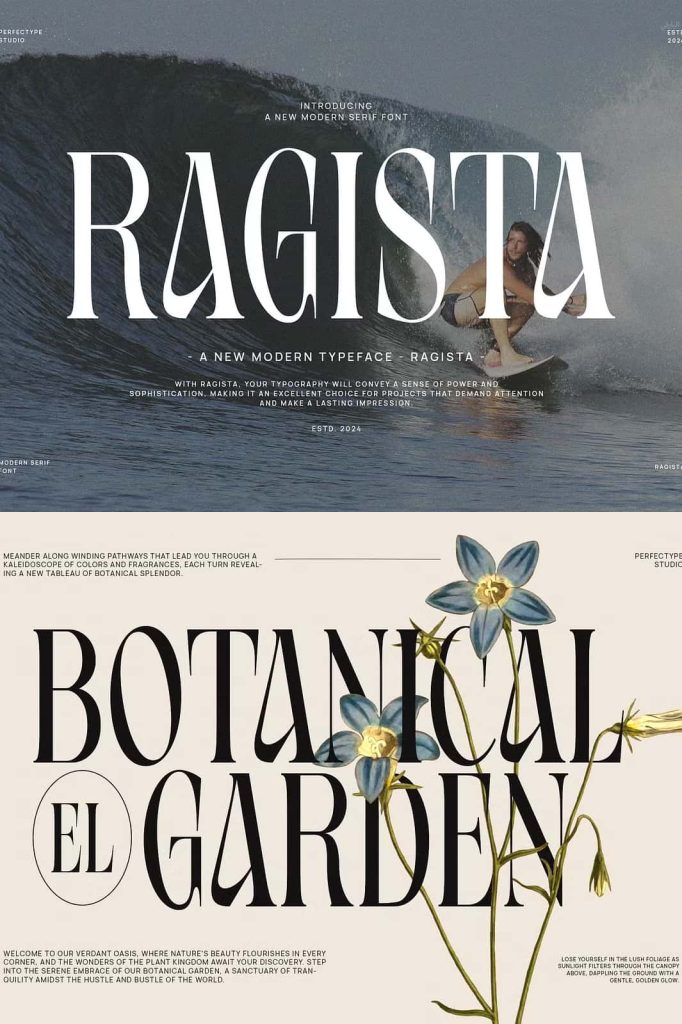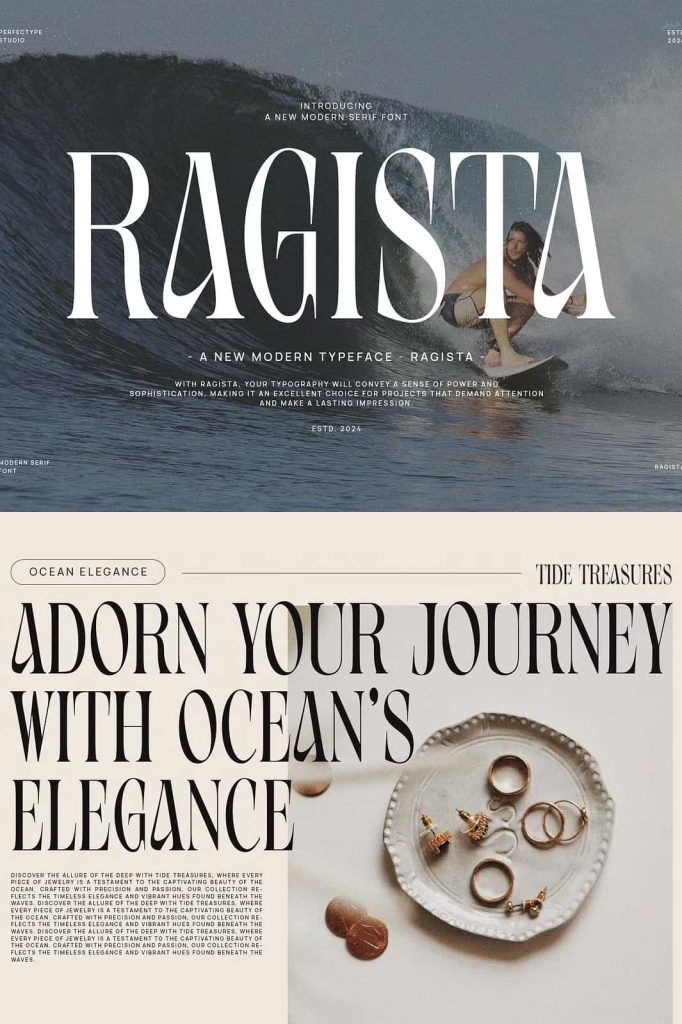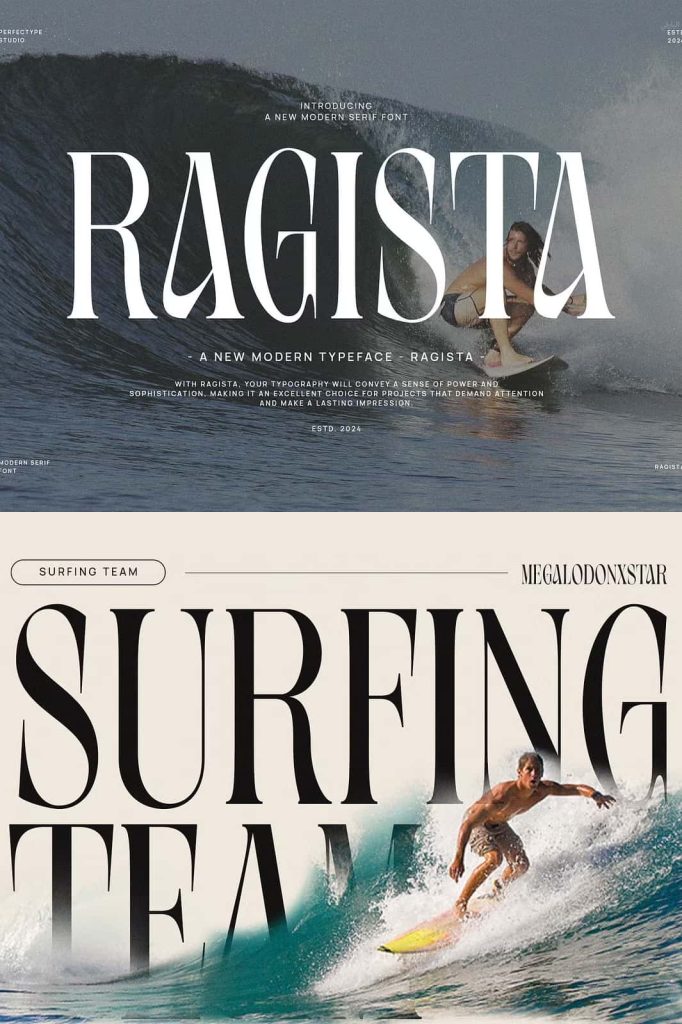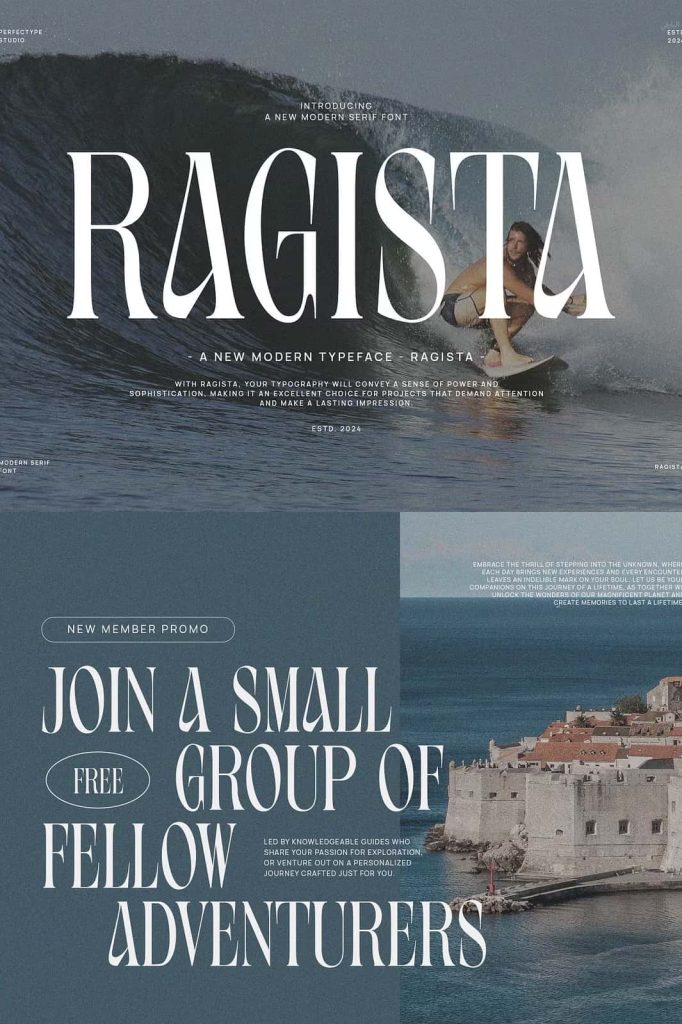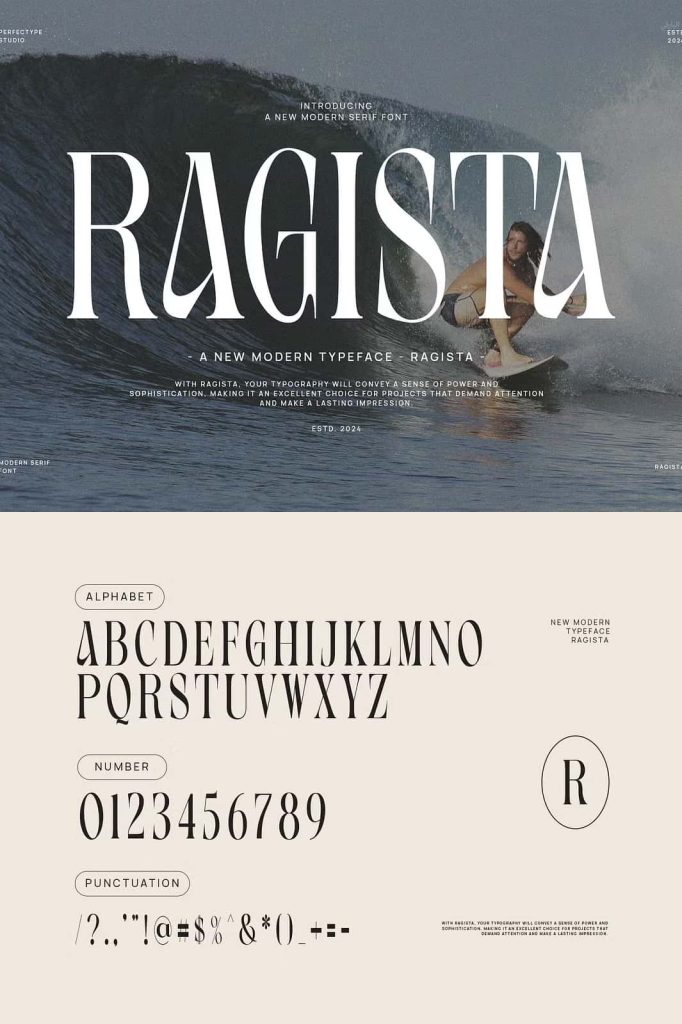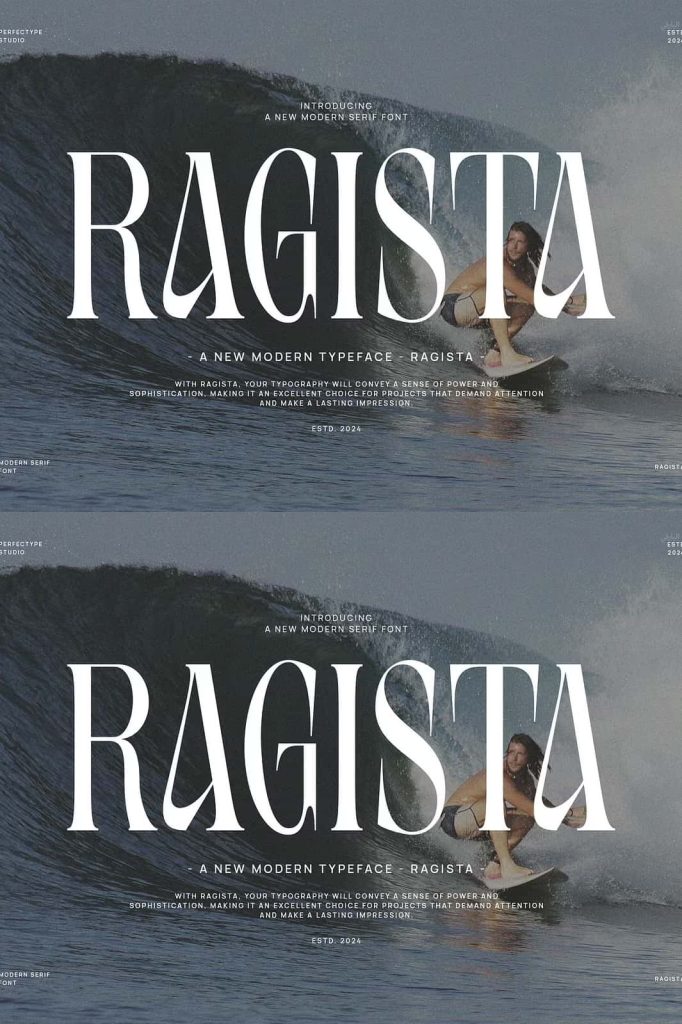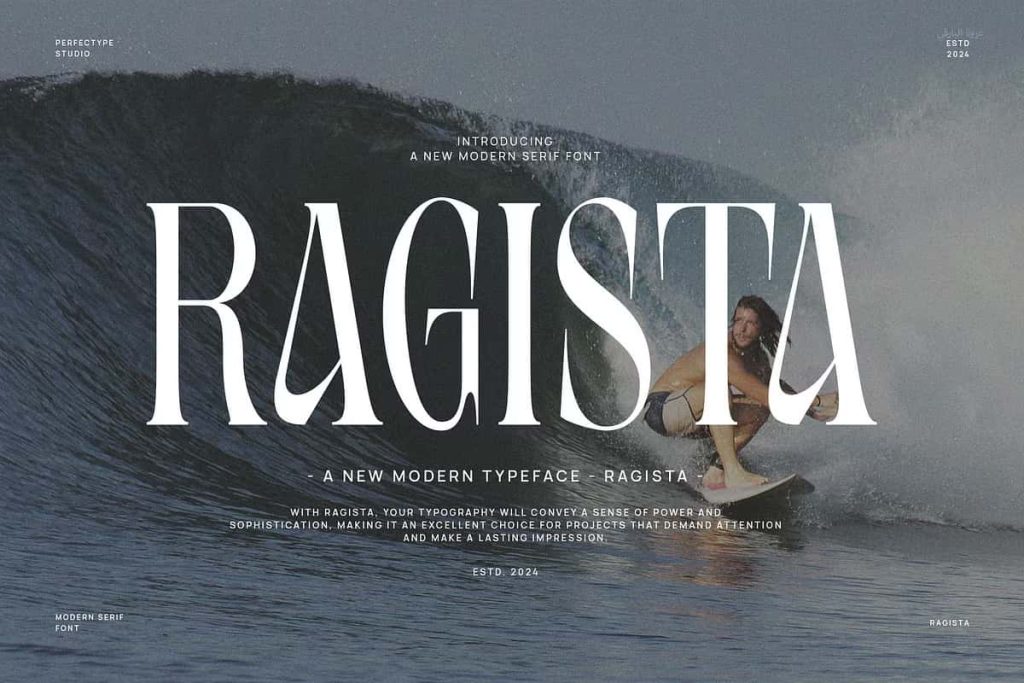
Ragista Elegant Serif Font
This is a very elegant and classy font for all branding and logo designs This type of serif font is created with elegance and luxury so it is perfect for all your design needs.